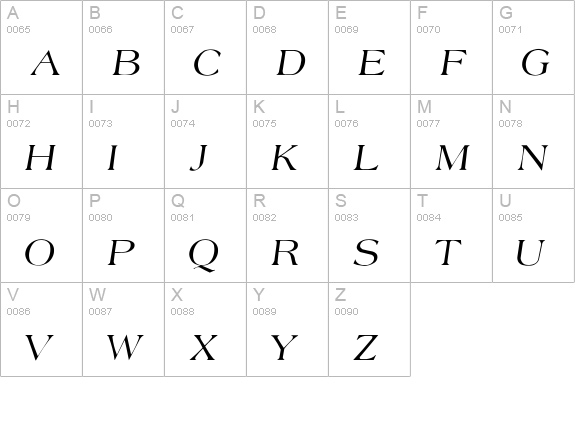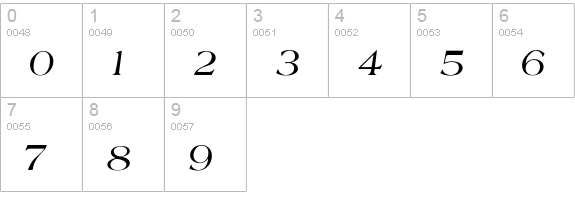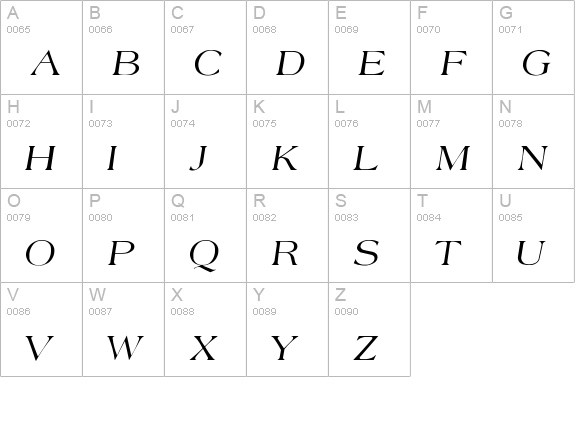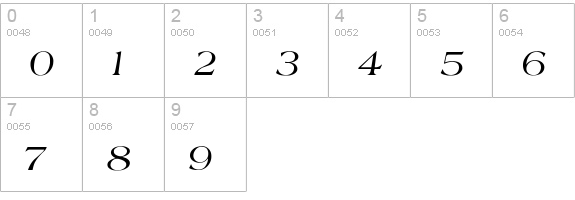
Agate-Normal-It is the standard, neutral variant in the Agate typeface family \xE2\x80\x94 well suited to general body text, paragraphs, and standard typographic work.
Agate-Normal-It is a sleek and versatile font that exudes elegance and modernity. With its clean lines and balanced proportions, this font is perfect for a wide range of design projects. The italic style adds a touch of sophistication, making Agate-Normal-It a great choice for headlines, logos, and branding materials. What makes Agate-Normal-It even more appealing is that it is free to download at FontsMarket.com. This means that you can elevate your designs without breaking the bank. Whether you're a seasoned designer or just starting out, Agate-Normal-It offers a professional and polished look that will make your work stand out. Download it today and see the difference it can make in your projects!